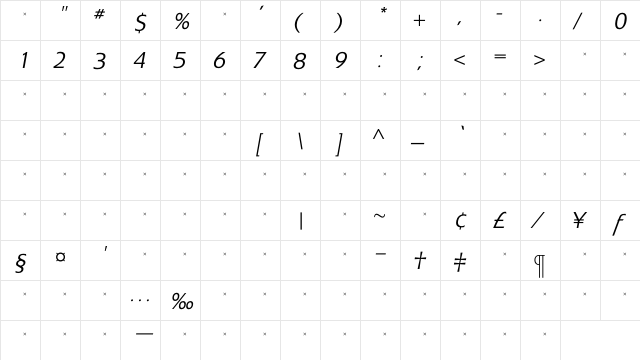
ExtensionLightItalicTab Regular
Design Context for ExtensionLightItalicTab Typeface
ExtensionLightItalicTab is a composed and adaptable typeface that performs quietly and consistently across a wide range of design contexts. The slanted form adds forward momentum and visual energy. Its slender proportions lend an understated elegance to any composition.
Pro Tip: Use ExtensionLightItalicTab for emphasis, pull quotes, and subheadings where its slanted energy can add rhythm to the layout.